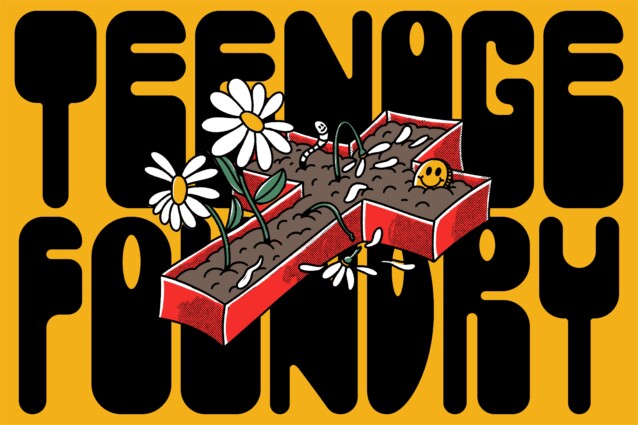
TF Spermo Font
TF Spermo Font is a display font that brings a touch of edginess to your designs. With its clean, neat curves and straight upright stance, this font is a perfect fit for projects that require a confident, youthful vibe. The strong lines and thick strokes give the font a bold and impactful look while its smooth lines and curves add a softer, more approachable touch.